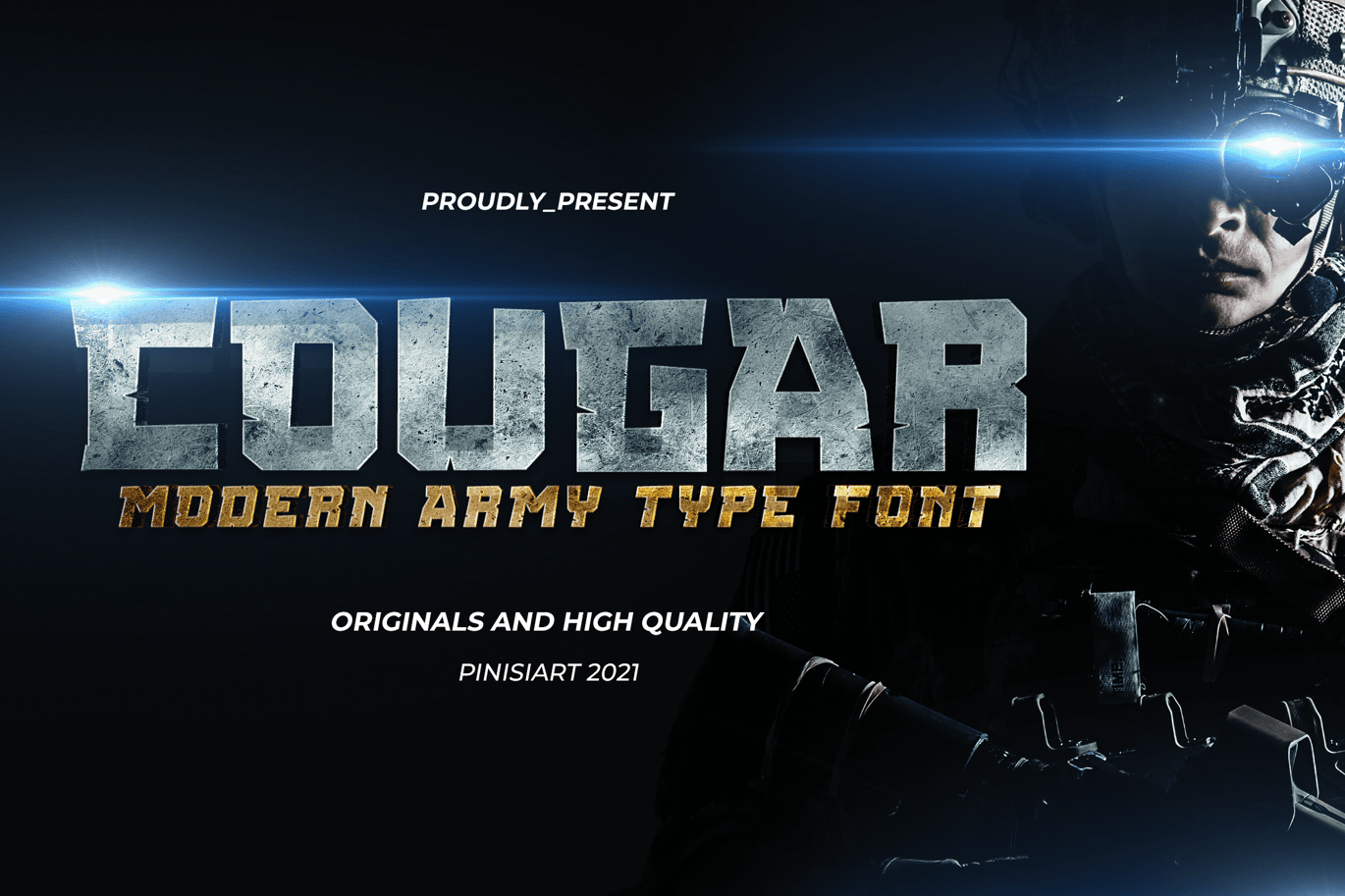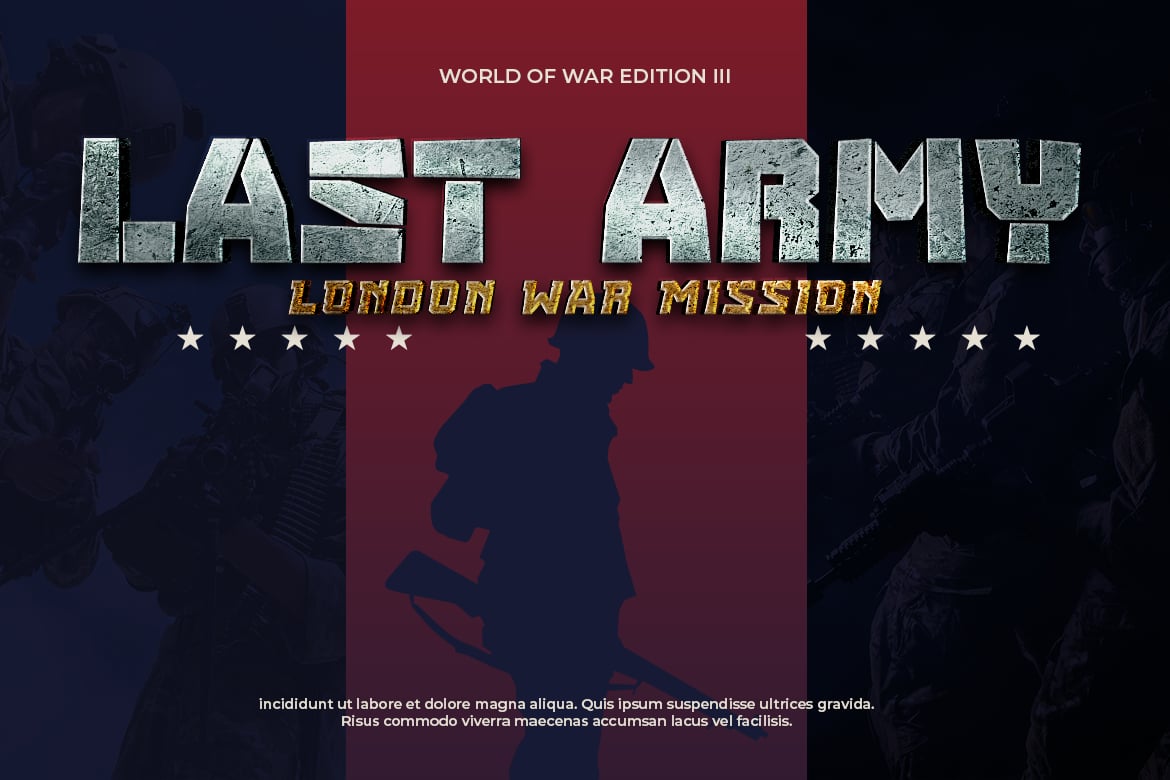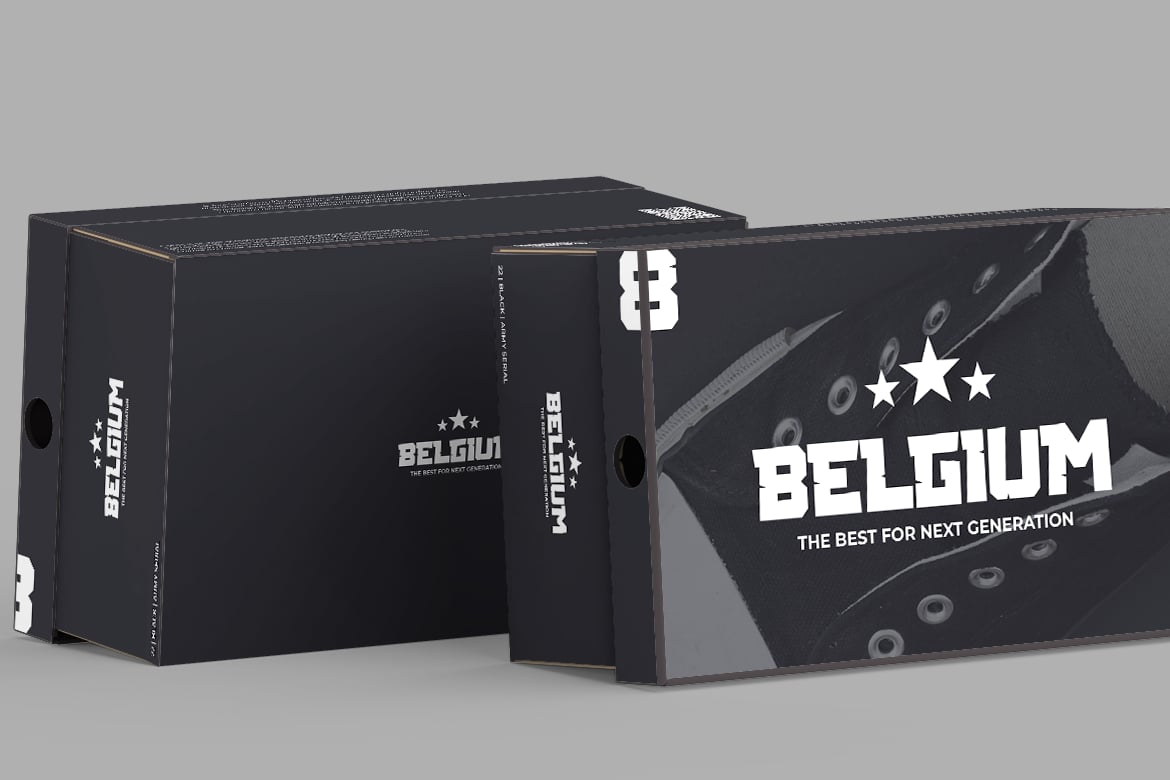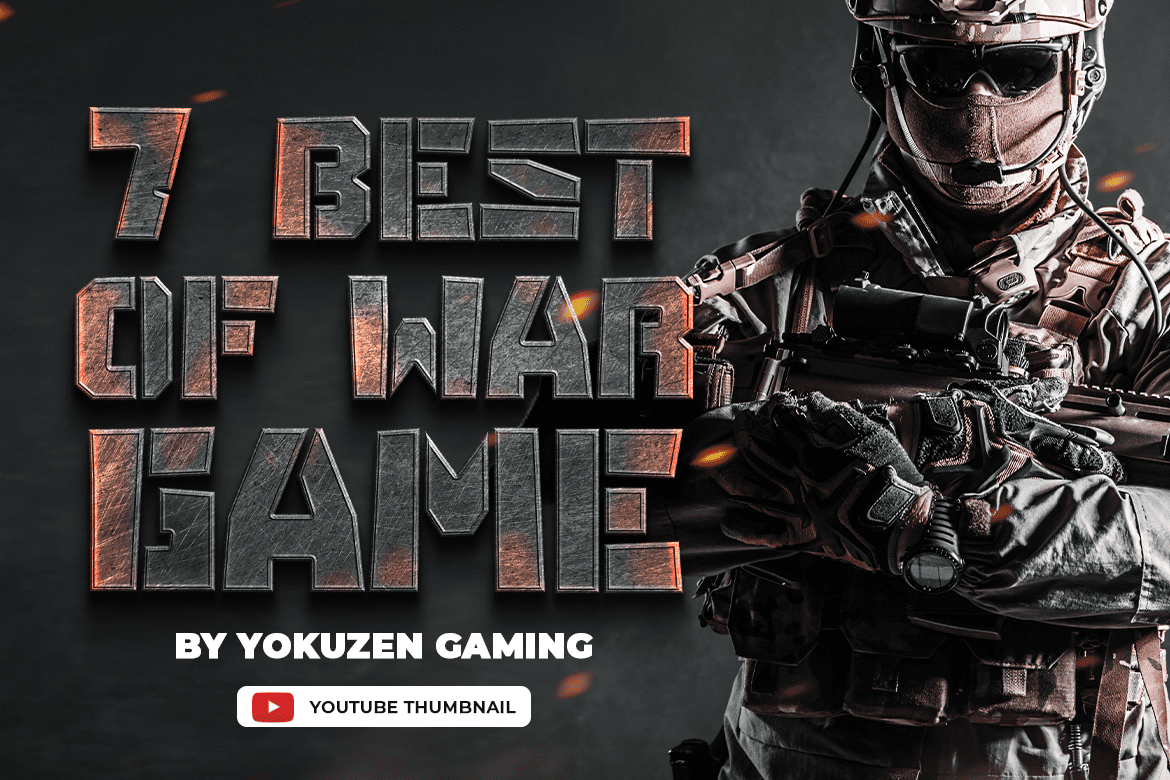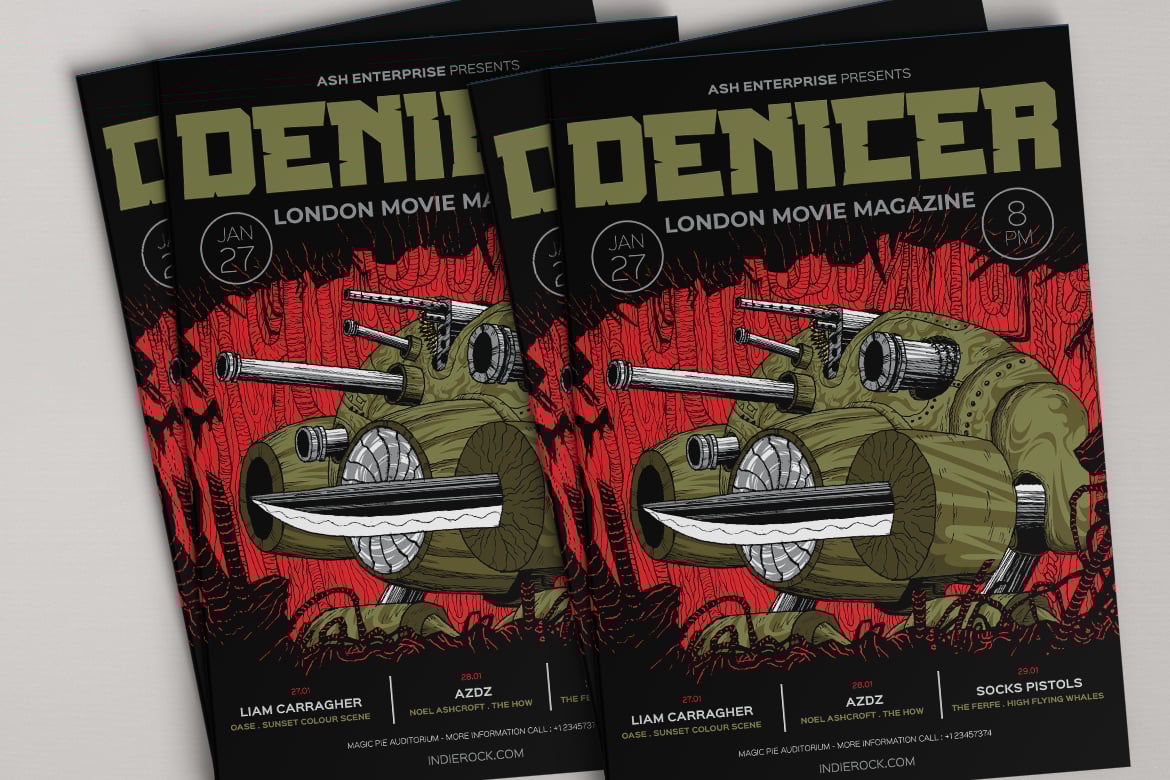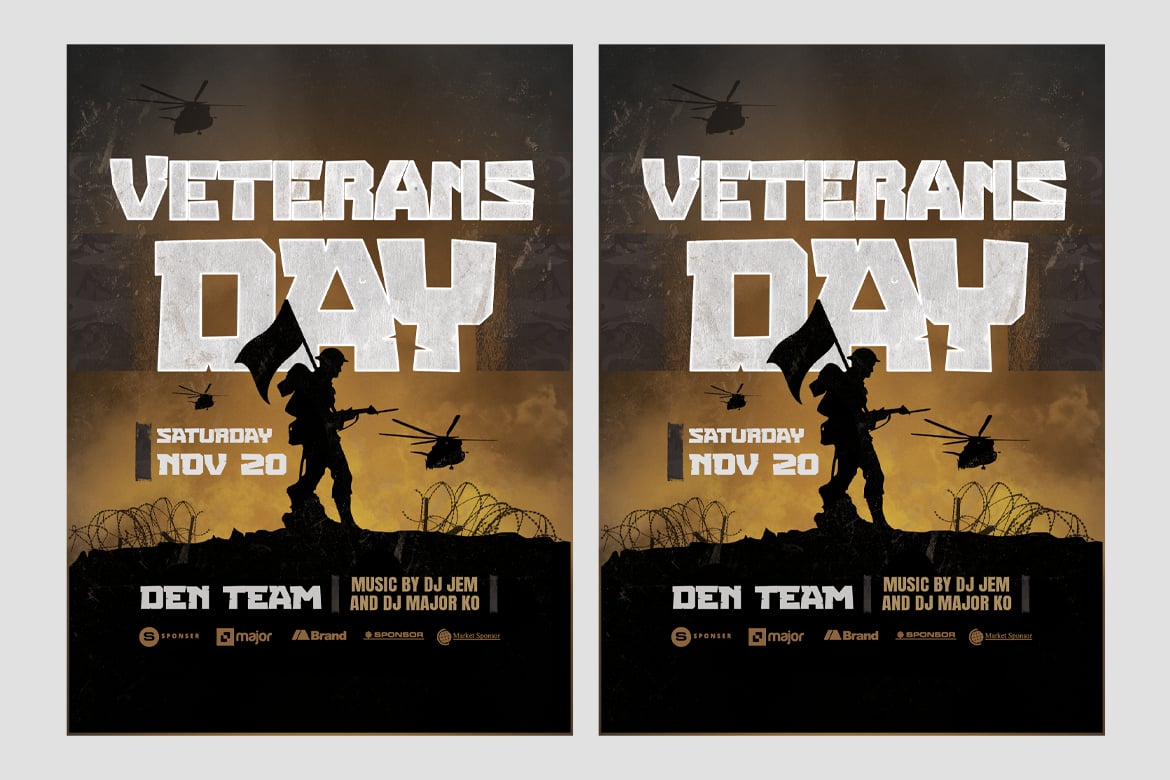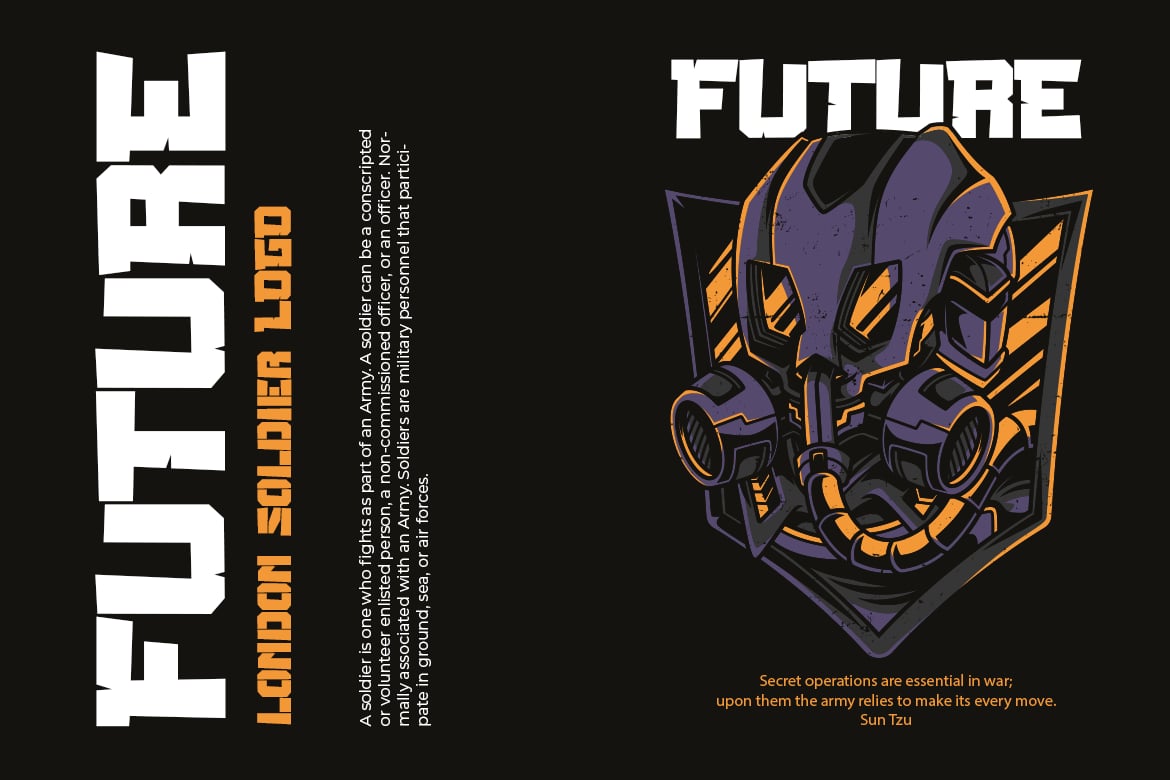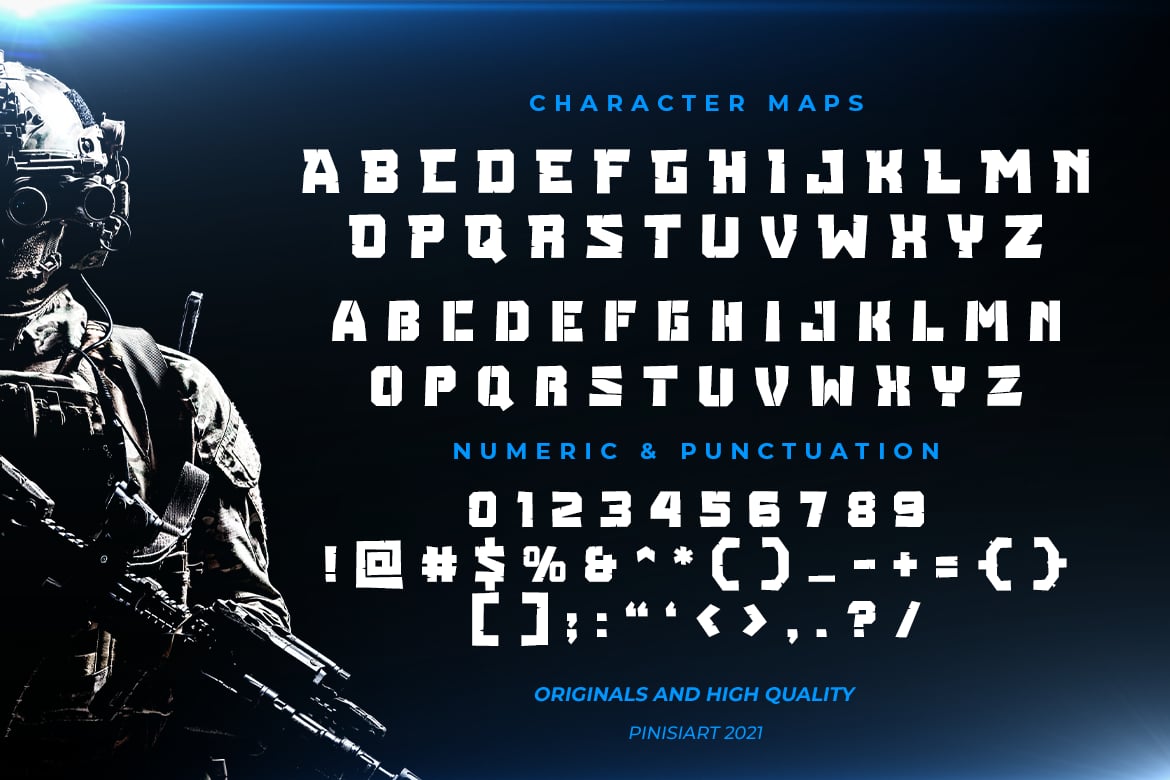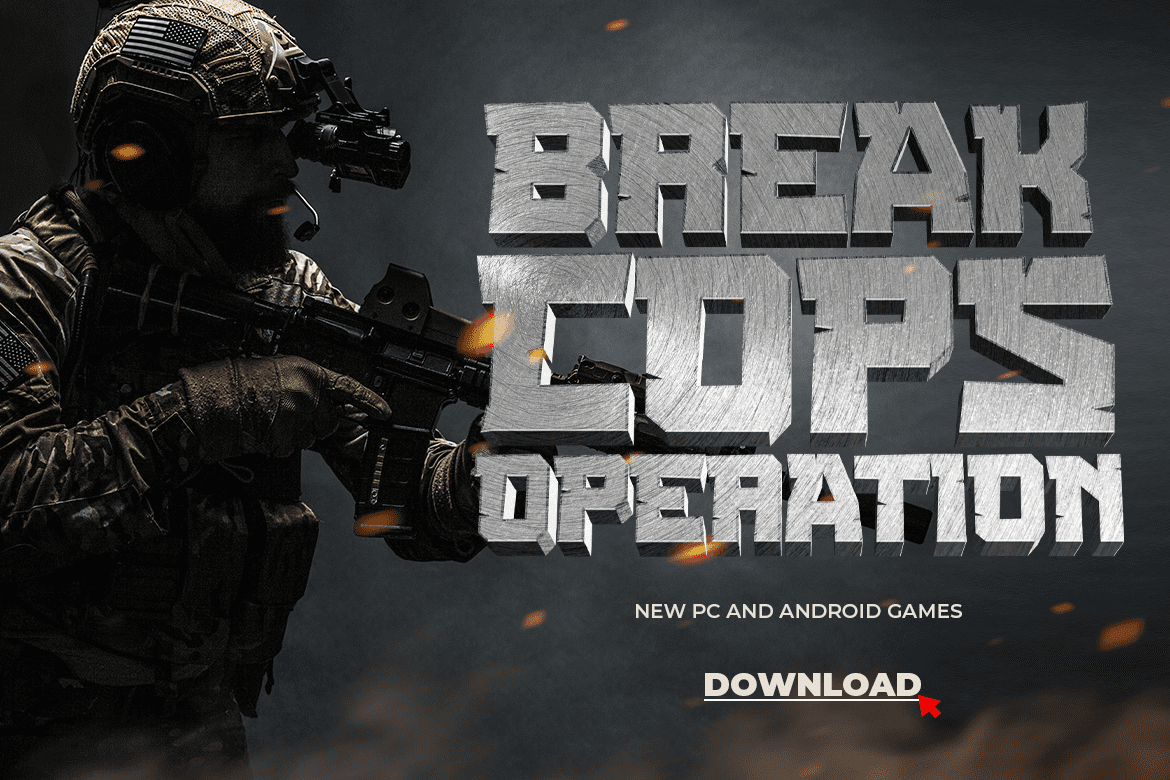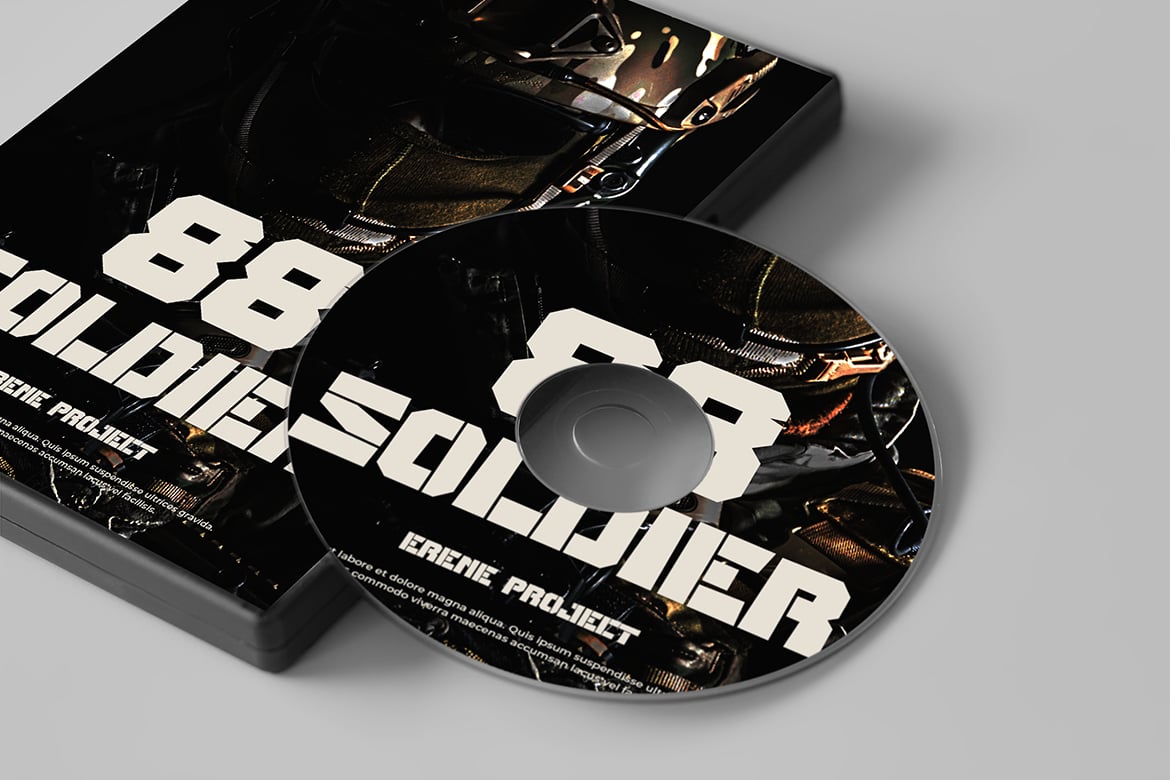
COUGAR – modern military Font
March on ! Guns ready, troops are coming…. we are gonna conquer the world !
Suit perfectly for military themes books market, online games, stationary, school supplies font, poster, movie title, youtube covers, youtube thumbnails, social media page covers and so on…